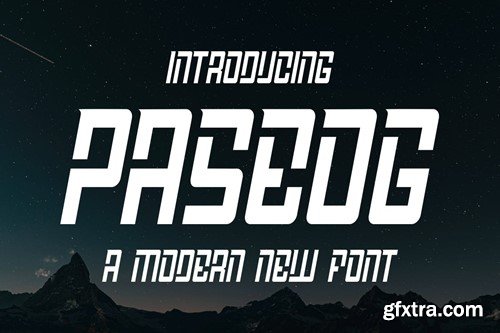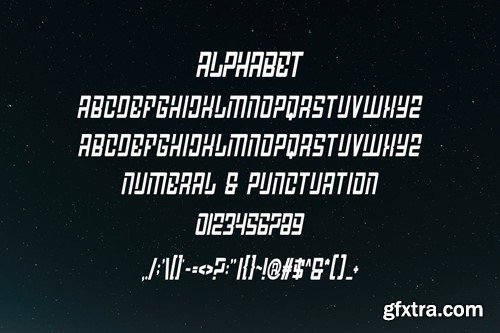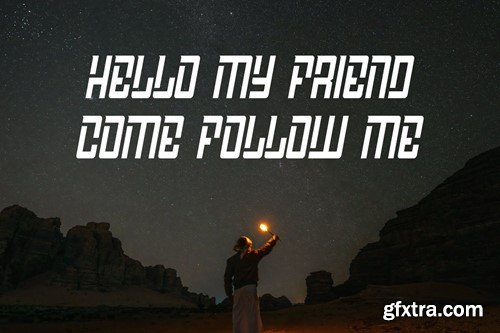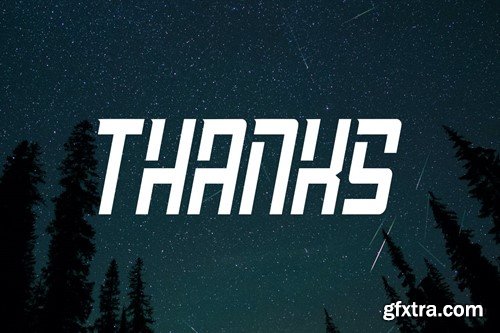
Paseog - a Popular Font
Introducing Paseog Modern Sans Serif Font. Paseog is a modern and simple font, best used as a display for headings, logos, branding, magazines, product packaging and invitations. Paseog come with clean lines and smooth curves give any project an extra touch of class. What you get: Thank you.